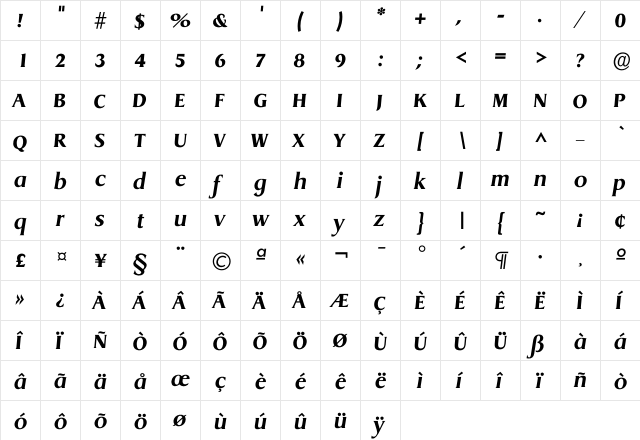
Idragon Bold
Design Context for Idragon Typeface
Idragon takes a measured approach to typography — its balanced proportions and neutral character make it a reliable workhorse for both digital and print work. Its bold stroke weight gives it real presence on the page.